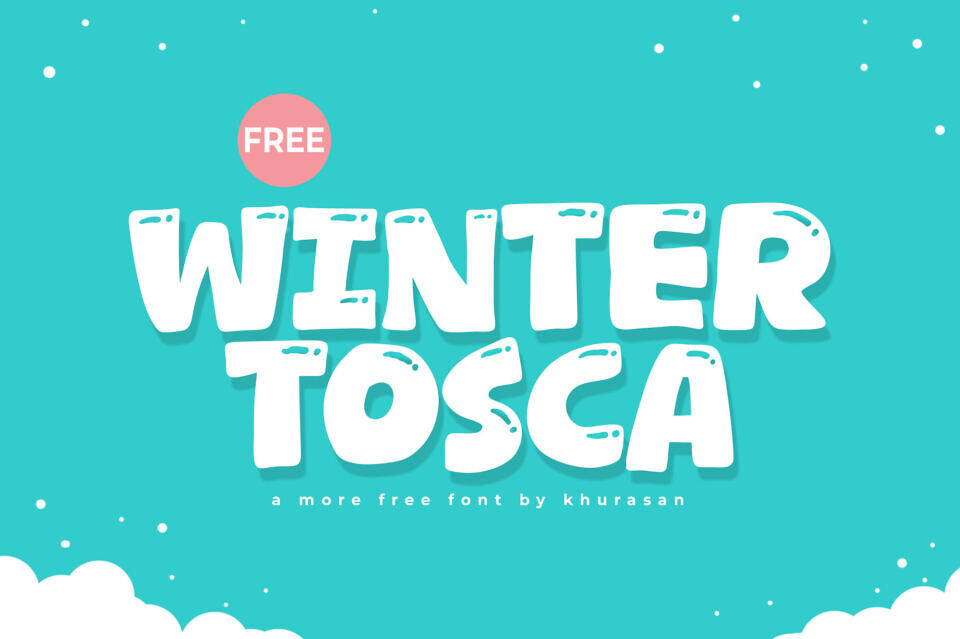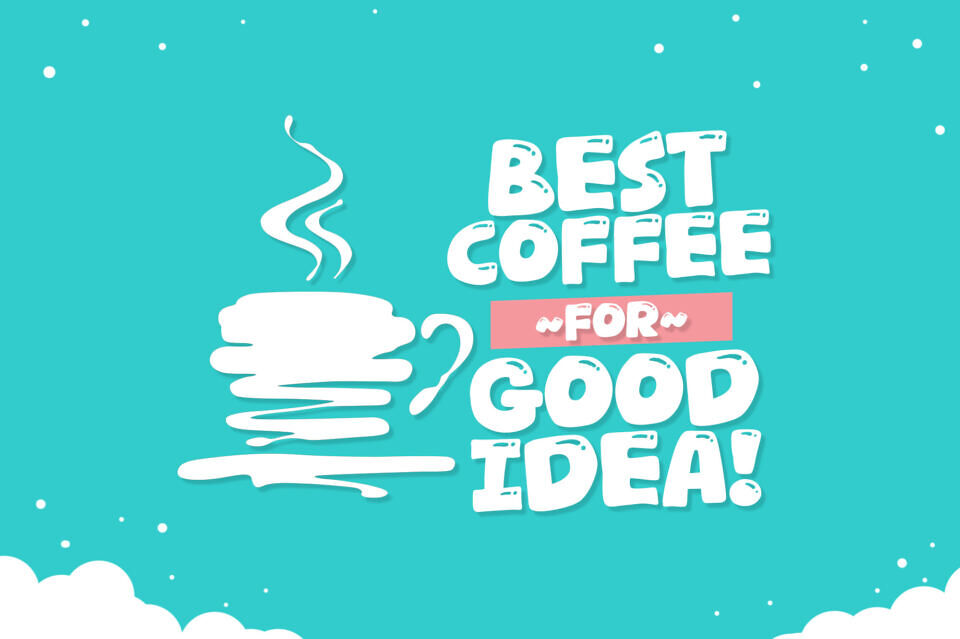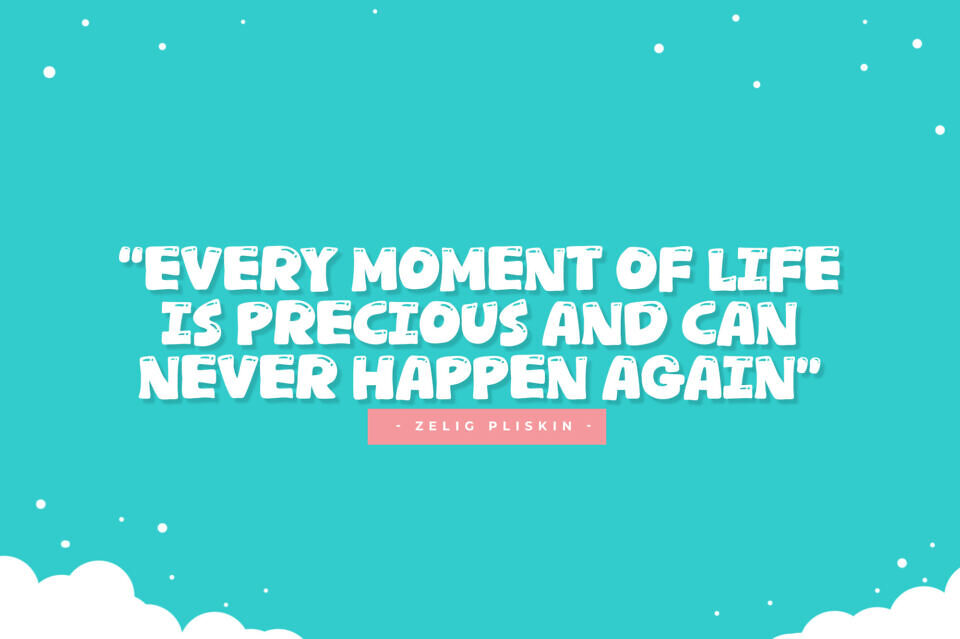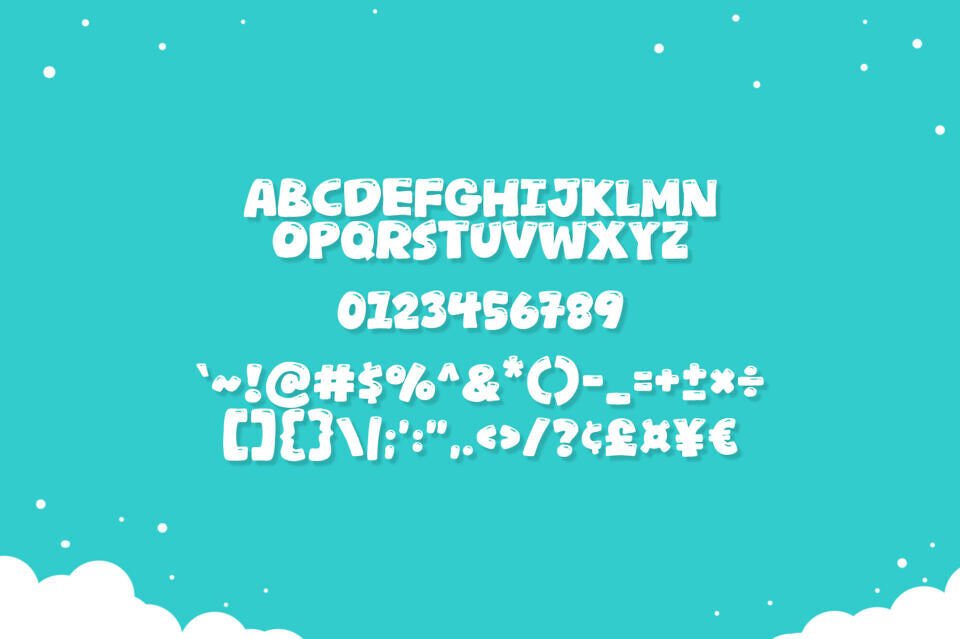
Bring a frosty cheer to your creative projects with the Winter Tosca font, a playful and heavy-set bubble typeface that captures the cozy essence of the season. The Winter Tosca typeface features ultra-bold, rounded letterforms accented with subtle “sparkle” or “snow” cutouts, giving your text an immediate winter-wonderland feel.
This font is a standout choice for holiday-themed children’s books, seasonal sale banners, and whimsical greeting cards. Because of its thick silhouette, the Winter Tosca font is exceptionally easy to read, making it perfect for high-impact social media headlines or YouTube thumbnails.